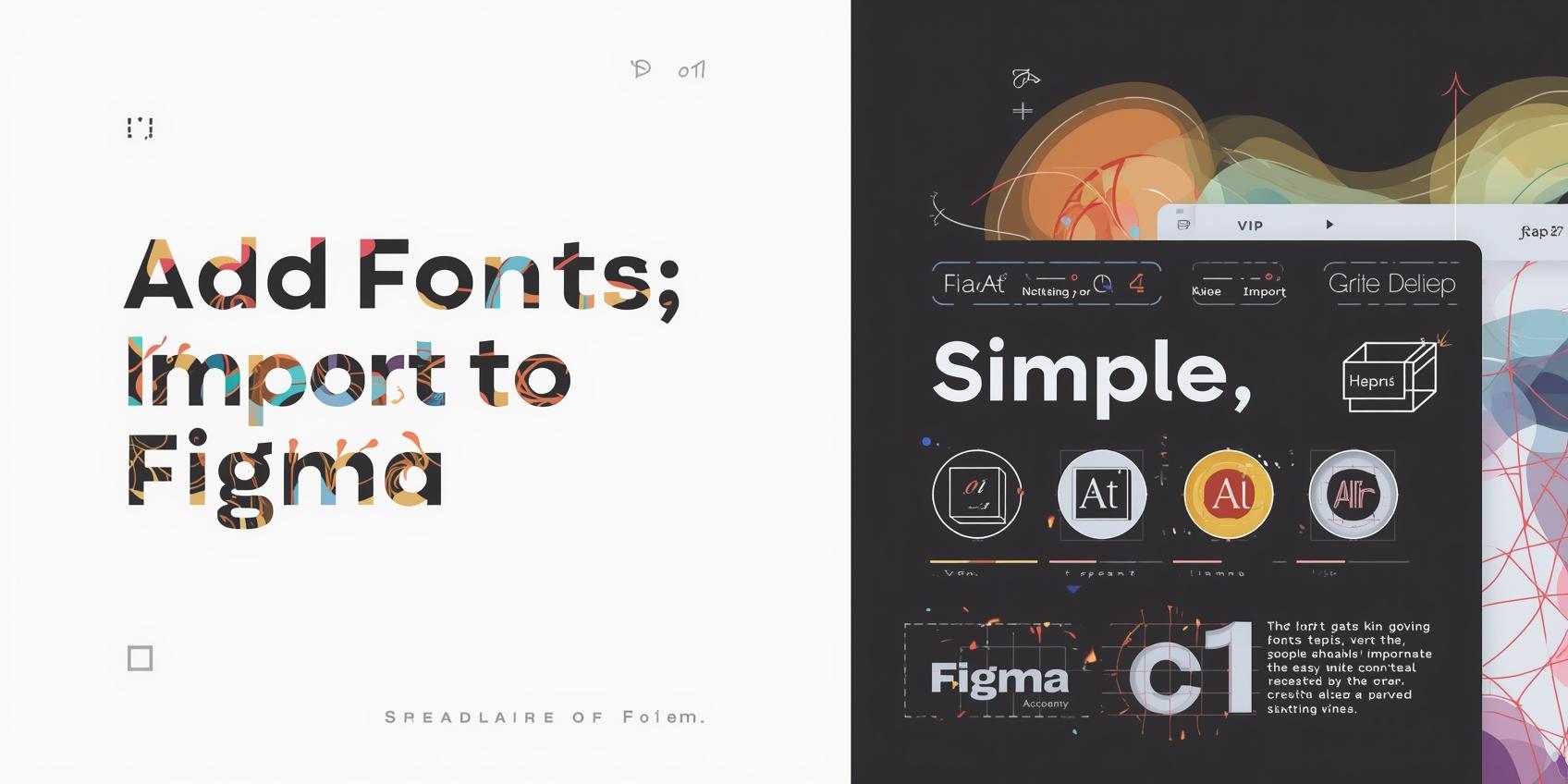
Simple Steps To Add Fonts To Figma For Stunning Designs
Typography can transform an ordinary design into something extraordinary. If you’re using Figma for UI/UX, social graphics, or branding, learning how to add fonts to Figma is essential for creating unique, on brand visuals. Whether you’re a student, freelance designer, or creative director, understanding how to add fonts to Figma ensures that your designs are consistent across teams and projects.
How to Add Fonts to Figma
The steps is simpler than most people think. Follow these steps to make sure you do it right:
1. Install Figma Desktop App – Custom fonts can only be used through the desktop app.
2. Install Figma Font Helper – Download Figma Font Helper (available for Mac/Windows) to sync your system fonts with Figma.
3. Add Fonts to Your Computer – Install your chosen fonts locally (OTF or TTF format).
4. Restart Figma Desktop – Refresh so the app detects your new fonts.
5. Select Fonts in Figma – Open a project, select text layers, and find your newly installed fonts in the dropdown.
Now you can add fonts to Figma and use them in any of your designs seamlessly.
Why Add Fonts to Figma?
There are several benefits that you will get:
• Brand Consistency: Ensure all team members use the same typography.
• Creative Freedom: Move beyond default fonts and explore unique styles.
• Professionalism: Impress clients with polished, branded mockups.
Font Pairing Inspiration for Figma
Adding fonts is only half the job pairing them well elevates your design. Here are some pairings:
• Altrobyte (bold modern) + Blob Freak (quirky display) → Ideal for tech startups and creative campaigns.
Use these pairings to give your project a unique visual identity.
Adding Fonts to Figma for Teams
When collaborating, it’s vital to ensure everyone has the same fonts installed. Here’s how to share fonts:
• Package the font files (OTF/TTF) and share them with your team.
• Make sure everyone installs them locally before opening the project.
• Use Figma’s Team Library to maintain design consistency.
Common Issues When You Add Fonts to Figma
Some of these issues are as follows:
• Fonts Not Showing Up: Ensure you installed them correctly and restarted the desktop app.
• Browser Limitation: Custom fonts won’t work on the browser version of Figma.
Tips for Better Typography in Figma
Once you add fonts to Figma, keep these design best practices in mind:
• Hierarchy Matters: Pair bold headlines with clean body text.
• Use Contrast: Mix serif and sans-serif for balance.
• Don’t Overuse Fonts: Stick to 2–3 fonts per project for clarity.
• Preview in Context: Test your typography on mockups for readability.
Advanced Steps: Add Google Fonts to Figma
Figma integrates directly with Google Fonts. You can:
• Access over 1,400 free fonts without installing anything.
• Combine Google Fonts with your custom ones for endless combinations.
• Sync them for team use no extra setup required.
This makes adding fonts to Figma even more powerful for global teams.
Typography is a cornerstone of great design. Once you learn how to add fonts to Figma, you unlock the ability to craft unique, on brand, and professional designs. Combine custom fonts with smart pairings, keep licensing in mind, and maintain consistency across your team.
By following these steps, you’ll never feel limited by Figma’s default font library again instead, you’ll create typography that speaks directly to your audience and enhances your design storytelling.